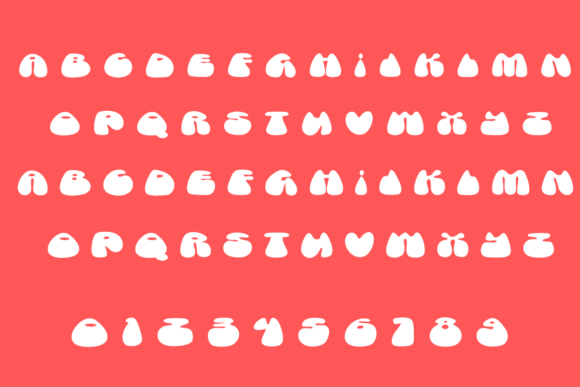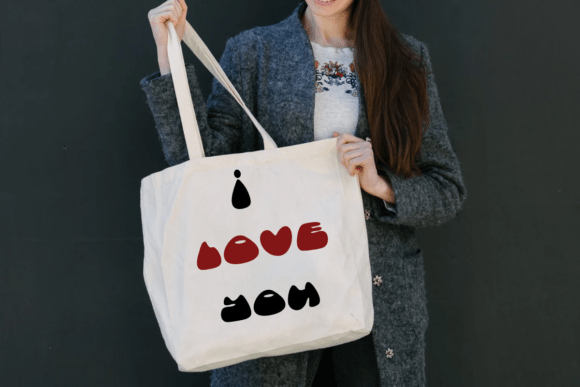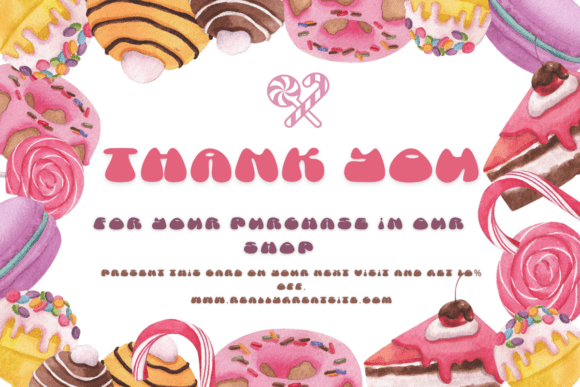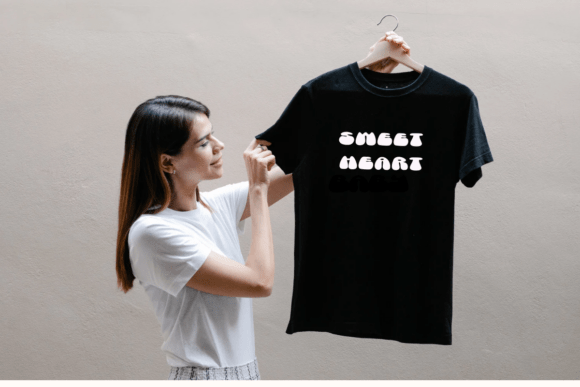
Candy Heart Font: The Sweetest Addition to Your Design Collection
Are you a designer, crafter, or DIY enthusiast looking for a fun and playful font to add some sweetness to your projects? Look no further than the Candy Heart Font! This delightful display font is perfect for a variety of creative endeavors, from taking notes and writing diaries to creating greeting cards, banners, and social media posts.
What is Candy Heart Font?
Candy Heart Font is a digital font designed to resemble the classic candy hearts that are a staple of Valentine’s Day and other celebrations. The font features bold, colorful letters with a sweet and playful vibe that’s sure to capture the attention of your audience. With its fun and whimsical design, Candy Heart Font is the perfect addition to any project that needs a touch of personality and charm.
Uses for Candy Heart Font
One of the best things about Candy Heart Font is its versatility. While it’s perfect for traditional uses like:
- Taking notes and writing diaries
- Creating greeting cards and invitations
- Designing banners and signs
- Adding a personal touch to mugs, cards, and shirts
- Creating stationery and journal pages
It’s also great for a wide range of digital and print designs, including:
- Email newsletters and marketing materials
- Digital scrapbooking and photo albums
- Custom illustrations and artwork
Why Choose Candy Heart Font?
So why choose Candy Heart Font for your next project? Here are just a few reasons:
- Fun and playful vibe: Candy Heart Font adds a touch of whimsy and fun to any project, making it perfect for designs that need a little personality.
- Easy to read: Despite its playful design, Candy Heart Font is still easy to read, making it perfect for use in a variety of contexts.
- Versatile: Whether you’re designing for print or digital, Candy Heart Font is a versatile choice that works well in a variety of applications.
- Customizable: With its digital format, you can easily resize, color, and manipulate Candy Heart Font to fit your design needs.
Tips for Using Candy Heart Font
Here are a few tips for getting the most out of Candy Heart Font:
- Use it sparingly: While Candy Heart Font is fun and playful, it can be overwhelming if overused. Try using it as an accent font to add a pop of personality to your design.
- Experiment with colors: One of the best things about Candy Heart Font is its bold, colorful design. Try experimenting with different colors and color combinations to find the perfect look for your project.
- Pair it with other fonts: For a more polished look, try pairing Candy Heart Font with a more traditional font. This will help create visual interest and add depth to your design.
Candy Heart Font is a fun and playful display font that’s perfect for designers, crafters, and DIY enthusiasts. With its bold, colorful design and versatile uses, it’s the perfect addition to any project that needs a touch of personality and charm. Whether you’re creating greeting cards, banners, social media posts, or more, Candy Heart Font is sure to sweeten up your design and capture the attention of your audience.